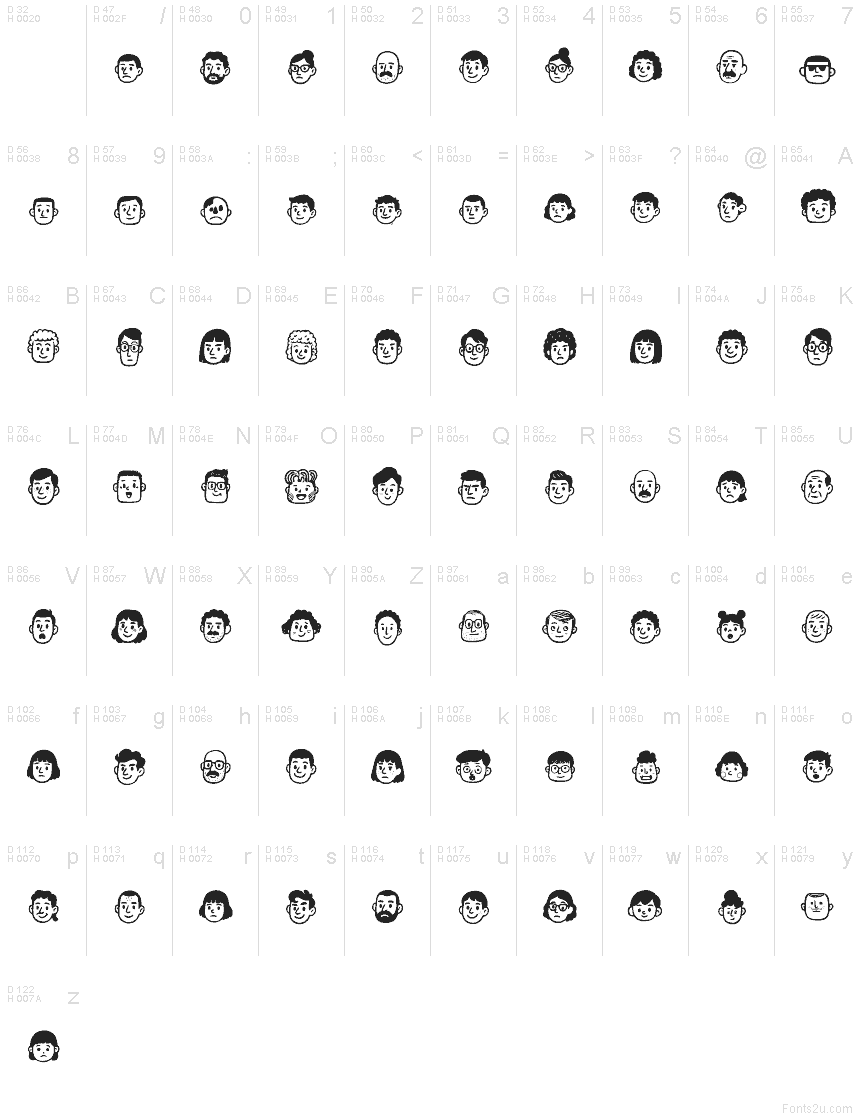
Blockheads United
Blockheads United font by BlackFridayFont FMF is a free cartoon dingbats font. It solves the “I need friendly faces fast” problem with a lineup of expressive heads drawn in inky strokes and tidy circles. Each character reads instantly at small sizes, giving you a quick way to add warmth, humor, and human presence without hiring an illustrator.
Using Blockheads United, you can drop personable avatars into app onboarding, profile placeholders, classroom handouts, kid-focused packaging, event badges, stickers, and playful poster series. The consistent line weight keeps sets looking unified, even when you mix different faces. For a clean combo, pair this free font with a rounded sans and give the icons a touch more tracking at tiny sizes.